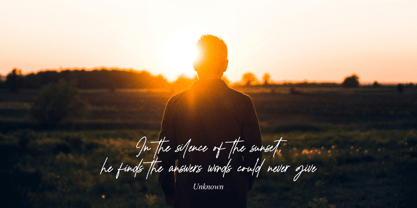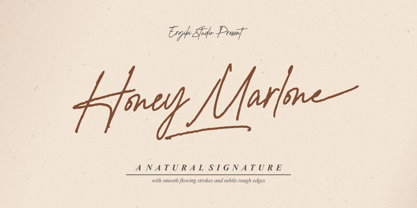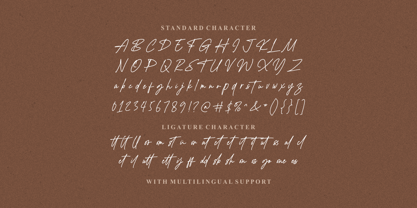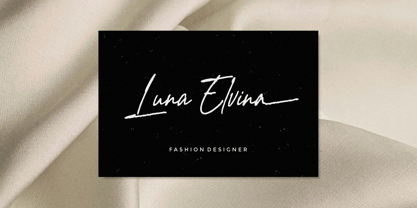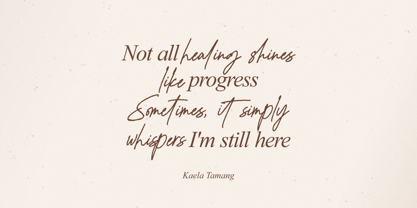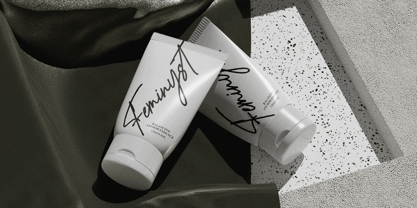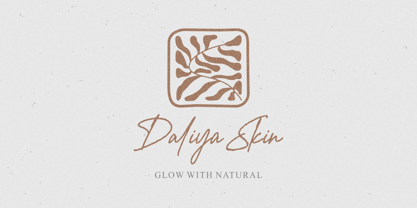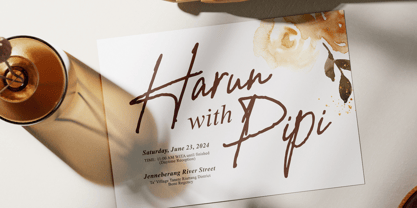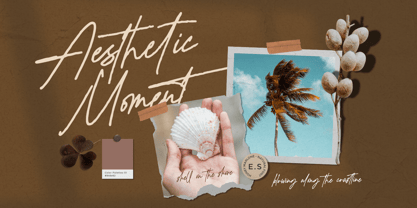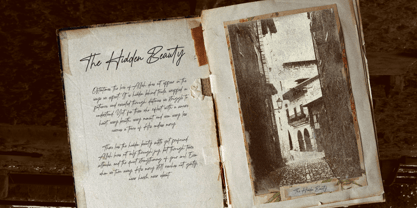
Honey Marlone
par Ergibi Studio
La famille de polices Honey Marlone a été conçue par Riyadh Rahman et publiée par Ergibi Studio. Honey Marlone contient 1 styles. En savoir plus sur cette famille
Honey Marlone is a natural handwritten font that radiates warmth and a personal touch, with smooth flowing strokes and subtle rough edges. Each letter feels as if it were written with an ink pen on cozy afternoon paper. Its organic, slightly irregular shapes give it an authentic feel, making it perfect for relaxed themes, personal branding, invitations, quotes, and product packaging that aims to feel friendly and approachable.